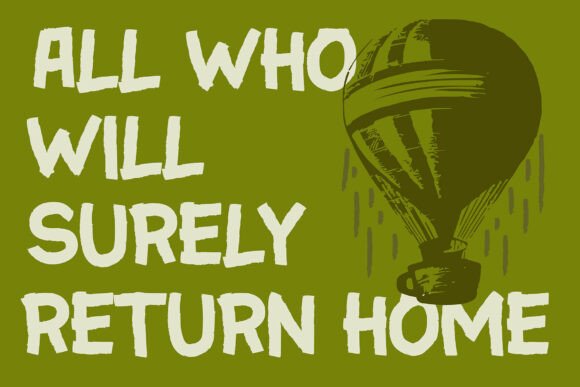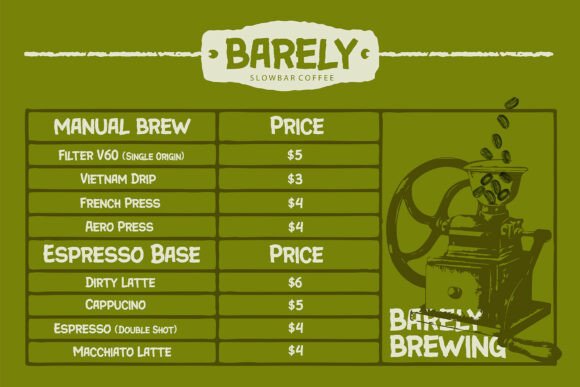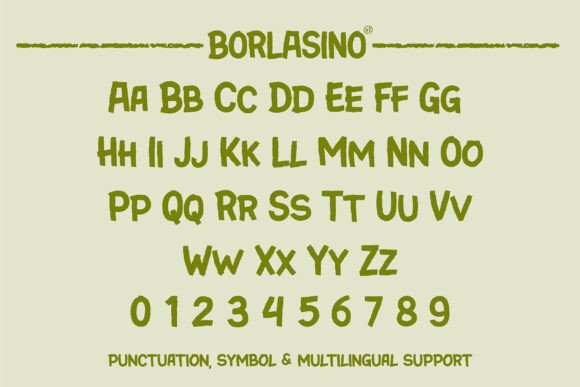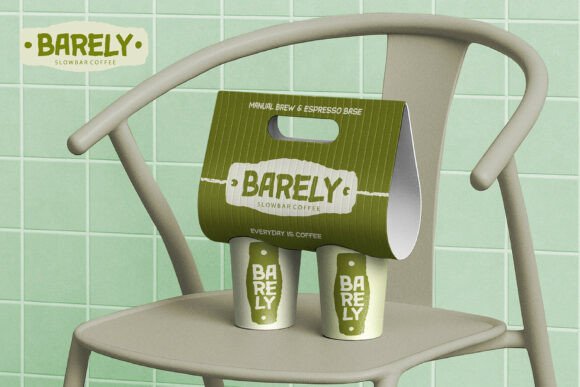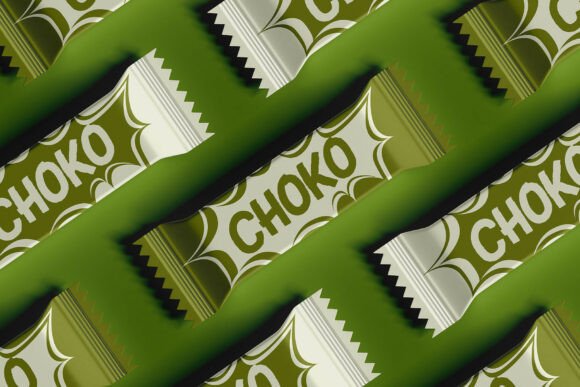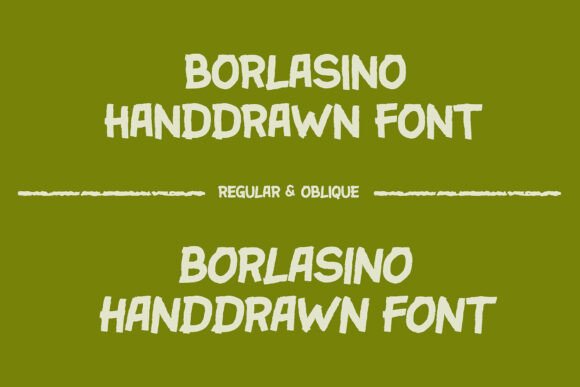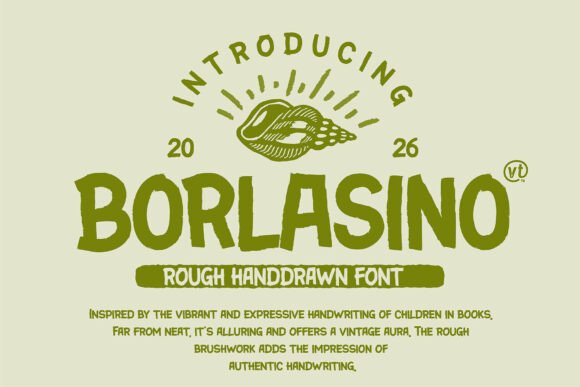
Introducing Borlasino Font: A Handcrafted Brush Typeface with Vintage Charm
In the world of typography, few fonts manage to capture the essence of handcrafted authenticity while maintaining modern usability. Borlasino Font, a powerful vintage-inspired typeface, achieves just that. Designed with authentic hand-drawn brush strokes, Borlasino brings warmth, personality, and strong visual impact to various design projects. In this article, we’ll explore the features, advantages, and applications of Borlasino, making it an excellent resource for designers and crafters seeking unique typography.
The Inspiration Behind Borlasino
Borlasino is more than just a font; it’s a reflection of classic brush lettering with a modern twist. The creator aimed to preserve the natural texture and imperfections of hand-drawn letters, resulting in a typeface that exudes a genuine, handcrafted feel. Every character in Borlasino showcases organic textures and bold movement, reminiscent of traditional brush lettering.
Key Features & Advantages of Borlasino
- Authentic Handcrafted Brush Strokes: Created from real brush lettering to preserve natural texture and imperfections.
- Vintage-Inspired yet Modern: Blends nostalgic aesthetics with contemporary usability.
- Multilingual Support: Ready for international and commercial use.
- Two Expressive Styles: Includes Regular and Oblique styles for dynamic typography.
- Flexibility in Design: Perfect for layered compositions and bold visuals.
Applications of Borlasino Font
Borlasino’s versatility makes it suitable for a wide range of design projects. Here are some ideal applications:
- Vintage Branding: Add a touch of nostalgia and authenticity to your brand’s identity.
- Logo Design: Create memorable logos with a handcrafted, unique feel.
- Packaging: Stand out on store shelves with bold, eye-catching packaging typography.
- Posters: Convey messages with a strong visual impact.
- Apparel: Design t-shirts, hoodies, and other apparel with distinctive typography.
- Coffee Labels: Add a vintage touch to coffee packaging.
- Signage: Create attention-grabbing signs for businesses or events.
- Album Covers: Give music albums a classic, artistic look.
- Editorial Projects: Enhance the visual appeal of magazines, newspapers, and blogs.
Why Choose Borlasino?
In a market flooded with digital fonts, Borlasino stands out for its handcrafted authenticity and vintage charm. Designers and crafters can benefit from:
- Unique Visual Identity: Borlasino helps create a distinctive visual identity that sets designs apart.
- Emotional Connection: The font’s organic texture and natural imperfections evoke an emotional response, making designs more relatable.
- Time-Saving: With Borlasino, designers can achieve a handcrafted look without the need for extensive custom work.
Borlasino Font is a remarkable addition to any designer’s toolkit. Its blend of vintage aesthetics and modern usability makes it perfect for a wide range of applications. Whether you’re working on branding, packaging, posters, or editorial projects, Borlasino offers the perfect combination of authenticity, personality, and visual impact. Experience the power of handcrafted typography with Borlasino and elevate your designs to the next level.